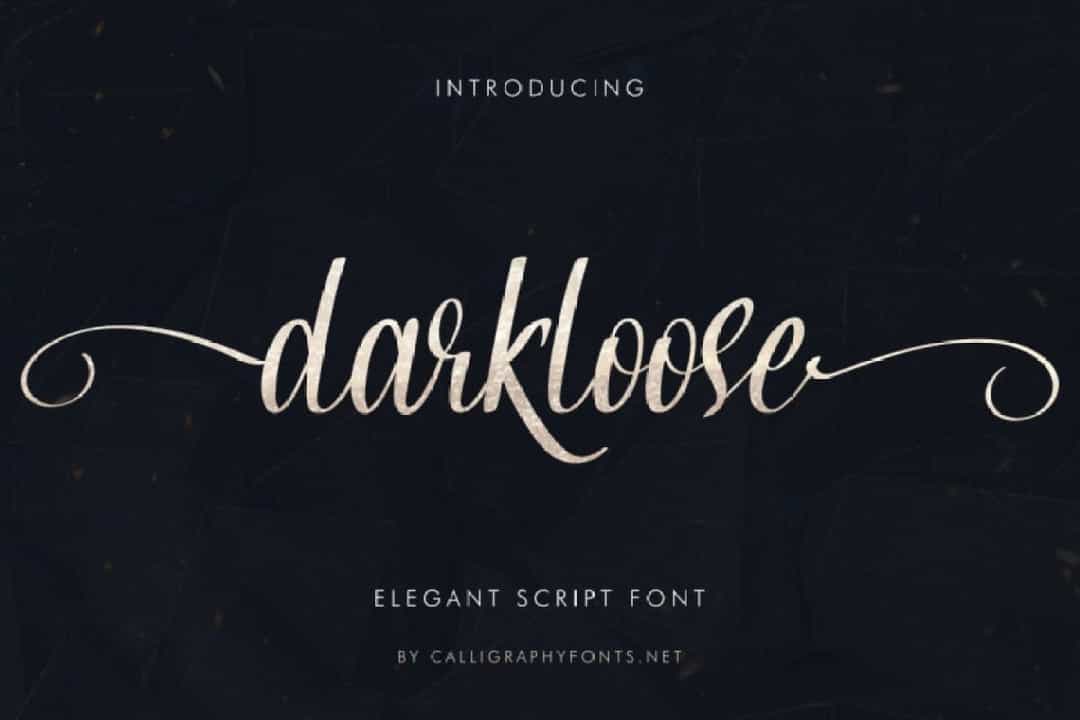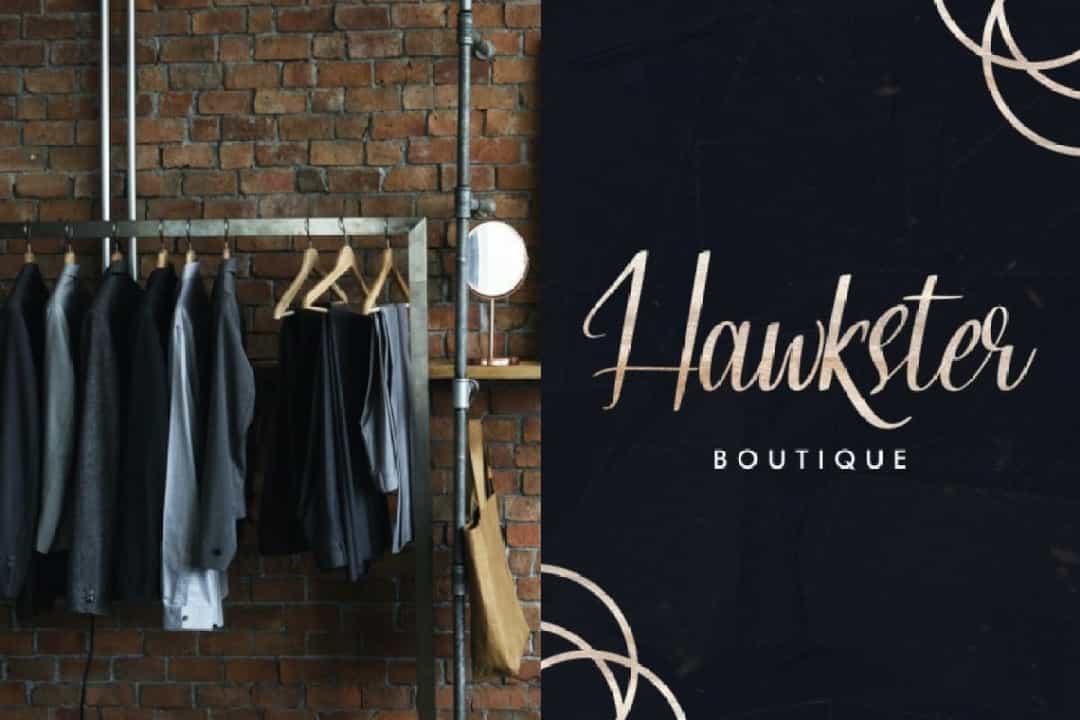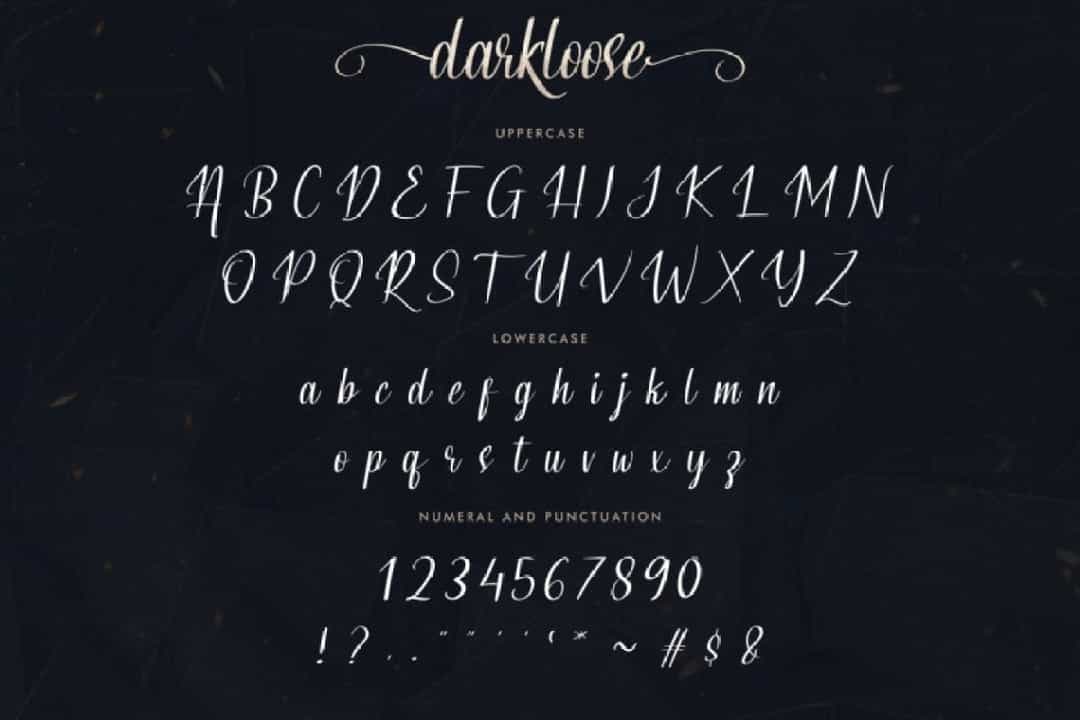
Darkloose is specifically developed for Calligraphists and is a script Calligraphy font. Perfect for any design requirements, including logo branding, modern ads, poster quotes and book or cover titles, and editorial web-based blog site designs, this font contains stylish, elegant and glamour elements and retain modern elegance in its brushed appearance.